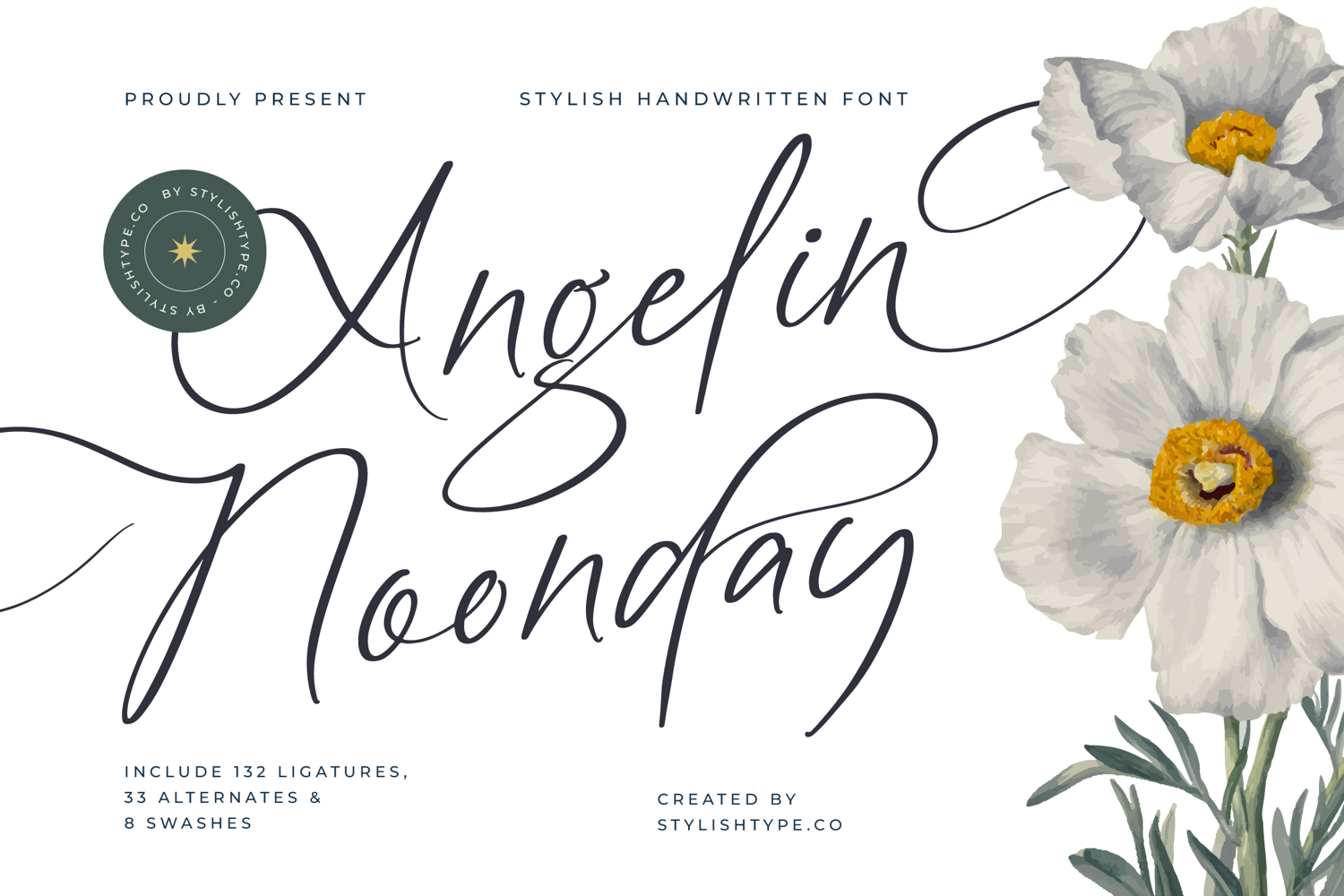
Angelin Noonday - Stylish Handwritten Font
Angelin Noonday Italic
Angelin Noonday
Angelin Noonday - Stylish Handwritten Font. This exquisite, high-contrast script captures the authentic fluidity of professional calligraphy, designed to command attention while conveying refined elegance. Its delicate yet dramatic strokes transition seamlessly, creating a truly luxurious visual signature perfect for projects demanding a premium aesthetic and strong typographic impact.